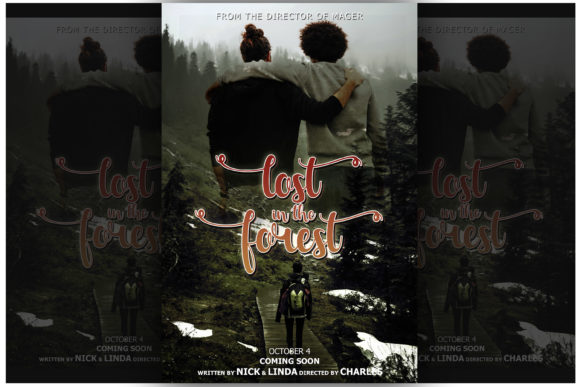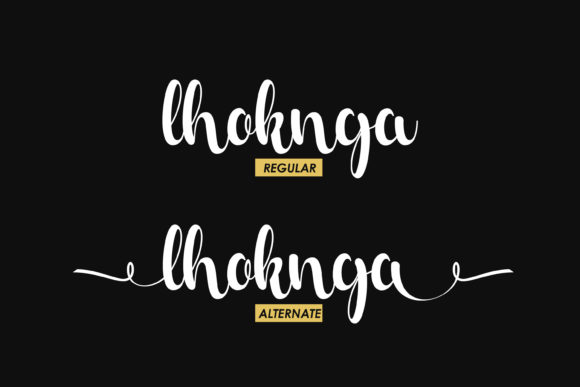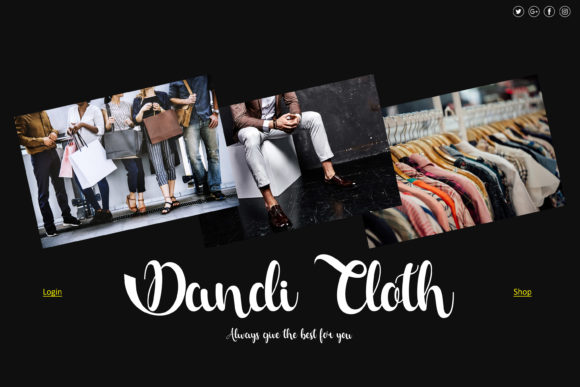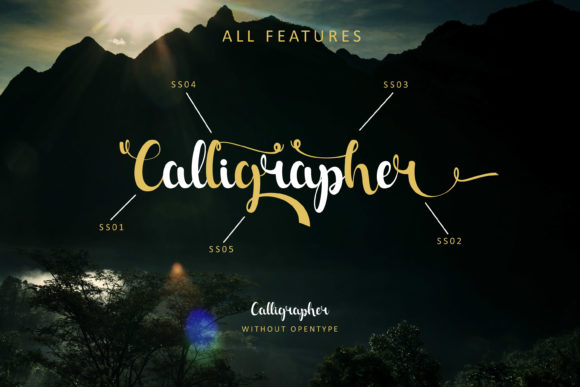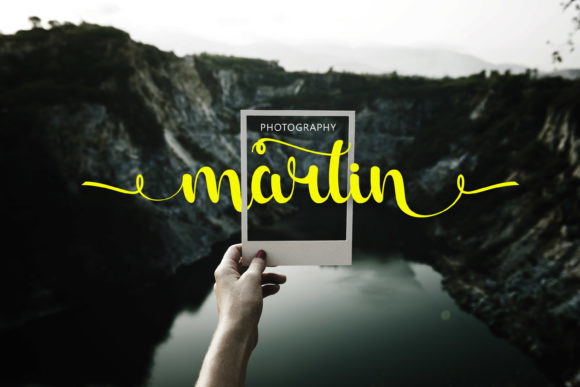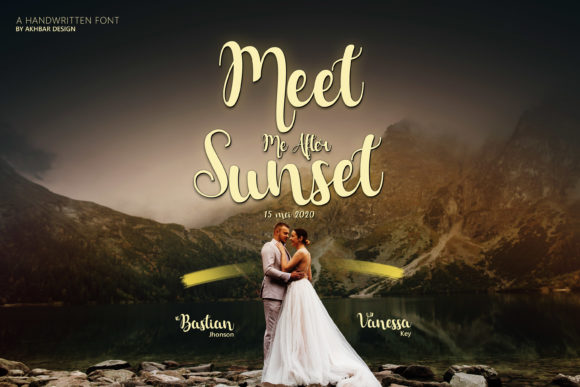
Risol Font – Free Download
Introduction to Risol Font
Risol is a magical handwritten font carefully created with a touch of elegance.
This font is the perfect fit for making original and outstanding designs .
Key Features of Risol Font
Why Choose Risol Font?